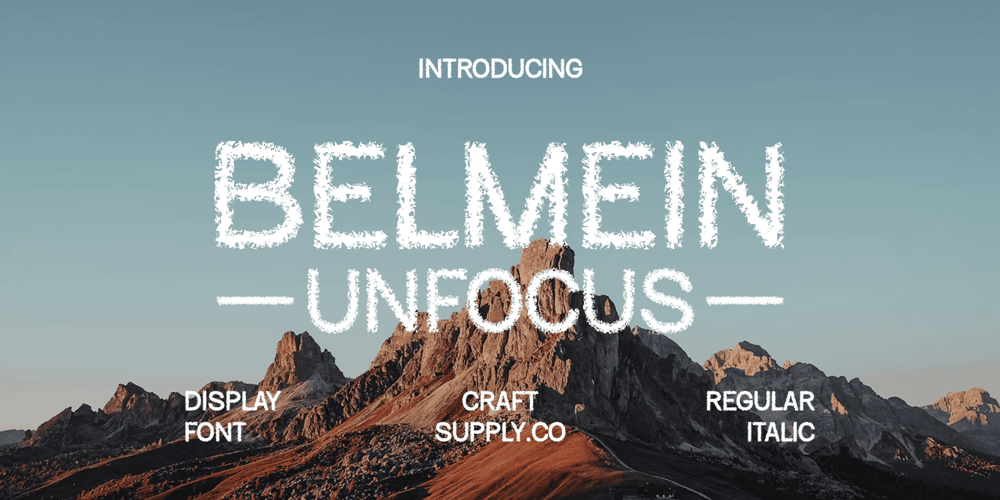
Belmein Unfocus Font Family was designed by Trio Nazzar Saputra, Wahyu Hadi Yuana and published by Craft Supply Co. Belmein Unfocus contains 2 styles and family package options. Belmein Unfocus: Where Unfocus Meets ModernityUnfocused Modern Sans Serif DesignBelmein Unfocus is a modern sans-serif font with an unfocused style, providing a unique and artistic impression in designs. Its unfocused look adds a dynamic and experimental element, making it ideal for projects that aim to be different and full of creativity.Versatile and ArtisticWith its versatile design, Belmein Unfocus Font is suitable for a variety of uses, including posters, packaging, and branding. Its unfocused style adds a unique and artistic flair, ensuring that your designs stand out from the crowd.Enhanced Visual CreativityBelmein Unfocus Font prioritizes visual creativity, ensuring that your designs are full of imagination and innovation. Whether used in print or digital media, this font adds a dynamic and experimental element that captivates viewers.Perfect for Unique and Experimental ProjectsWhether you’re designing a bold poster, an experimental website, or a distinctive brand identity, Belmein Unfocus Font is the perfect choice for projects that require a unique, experimental, and artistic appearance. Its unfocused style ensures that your work will always look innovative and full of creativity.